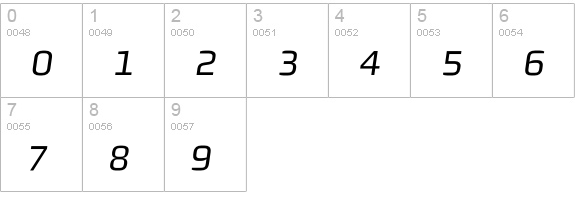
MorganSnCaps Oblique Font Details
MorganSnCaps Oblique is a distinctive, italic variant in the MorganSnCaps typeface family \xE2\x80\x94 well suited to design and typography projects.
MorganSnCaps Oblique font is a stylish and versatile typeface that exudes elegance and sophistication. With its slanted design and unique letterforms, this font is perfect for adding a touch of modernity to any project. The sleek curves and sharp angles of MorganSnCaps Oblique create a dynamic and eye-catching visual impact, making it ideal for a wide range of design applications. This font is not only visually appealing but also highly functional, making it suitable for both display and text purposes. Whether you're designing a logo, poster, website, or any other creative project, MorganSnCaps Oblique will add a touch of sophistication and flair. The best part is that MorganSnCaps Oblique font is available for free download at FontsMarket.com. So, you can easily access this stunning typeface and start incorporating it into your designs today. Don't miss out on the opportunity to enhance your projects with the elegance and style of MorganSnCaps Oblique font.